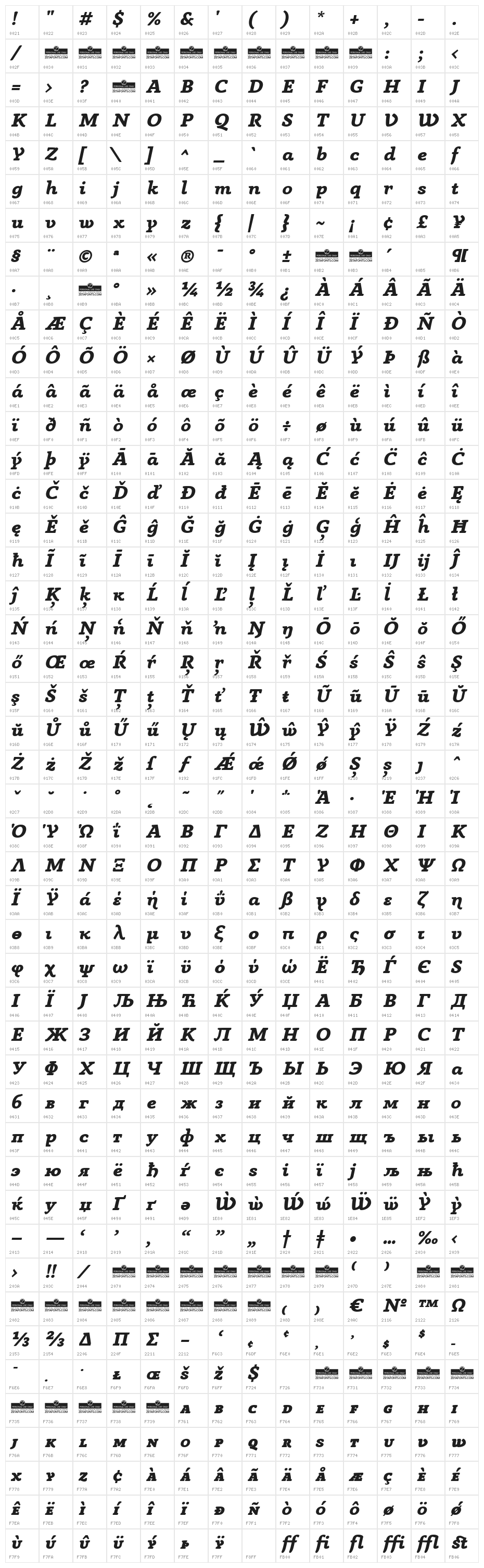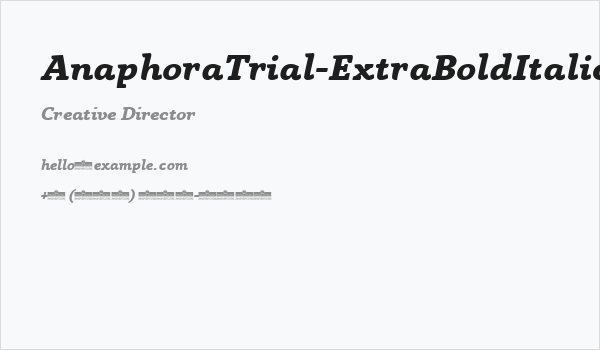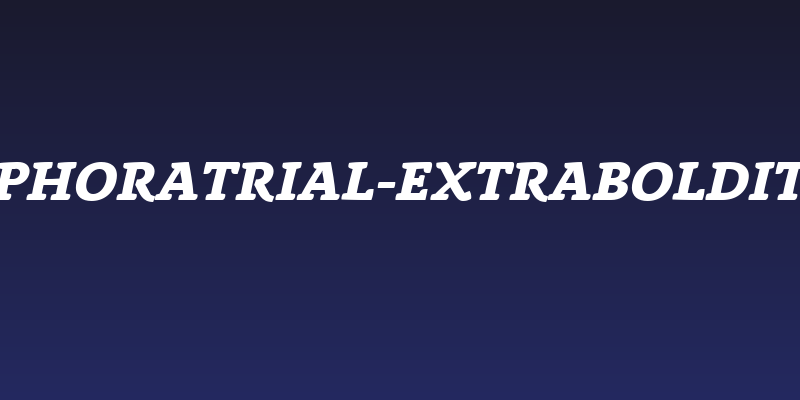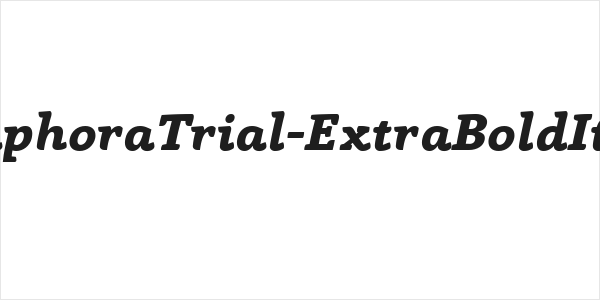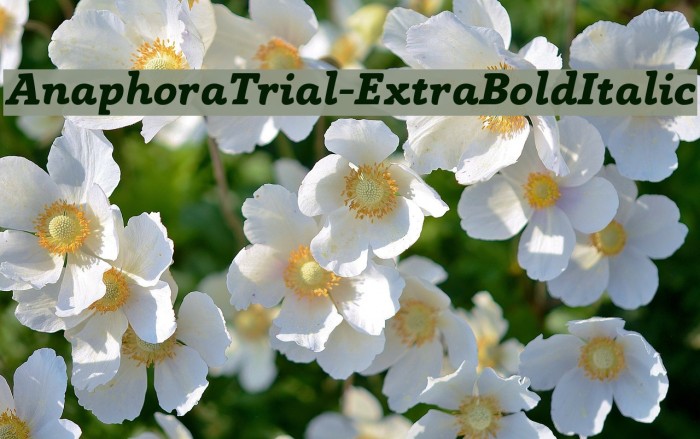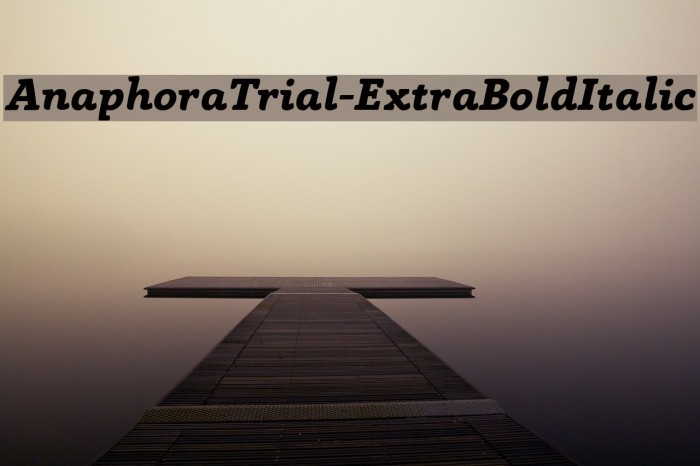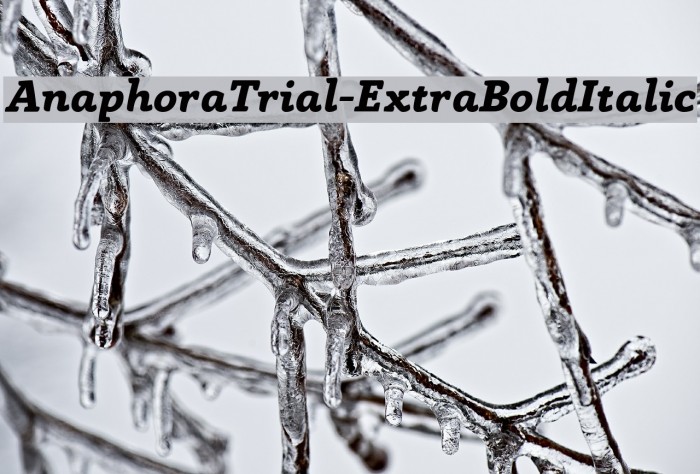
AnaphoraTrial-ExtraBoldItalic Font
AnaphoraTrial-ExtraBoldItalic Description
This font exhibits a bold and dynamic style with a pronounced italic slant, giving it a sense of movement and energy. The characters are robust and impactful, with thick strokes that enhance its presence. The uppercase letters are strong and commanding, while the lowercase letters maintain a consistent flow, contributing to the font's cohesive appearance. The numerals and special characters are designed to match the overall boldness, ensuring uniformity across all elements. This font's design is both modern and versatile, suitable for a variety of applications where a strong visual impact is desired.
| Proposed Projects | Ideal for branding, headlines, posters, and any project requiring a strong visual impact. |